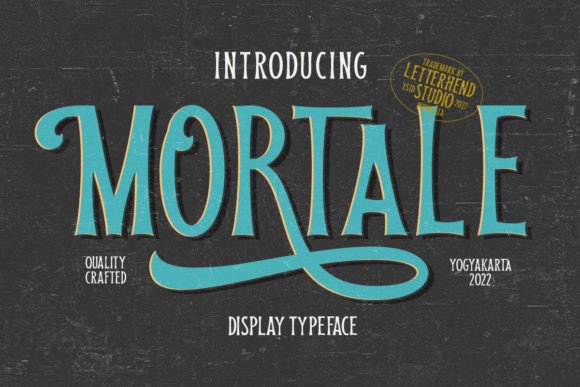
Discover Mortale Font: A Timeless Masterpiece for Your Creative Expressions
Journey back in time with Mortale Font, a stunning display font that captures the essence of vintage artistry. Inspired by the charm of bygone eras, Mortale beautifully blends the allure of yesteryears with a touch of modern elegance.
Immerse yourself in the world of vintage lettering as you craft captivating headlines that exude a timeless appeal. Let Mortale's distinct characters dance across your designs, adding a touch of nostalgia and sophistication to your projects.
Elevate your logotypes with Mortale's distinctive charm, creating visual identities that stand out from the ordinary. Its meticulously crafted glyphs will add a touch of uniqueness to your branding efforts, ensuring your designs leave a lasting impression.
Unleash your creativity in the world of fashion with Mortale's versatility. Design apparel that speaks to the vintage enthusiast, creating t-shirts, sweatshirts, and accessories that evoke a sense of history and style.
Personalize your invitations with Mortale's elegant touch, adding a timeless charm to your special occasions. Its graceful curves and intricate details will elevate your invitations, making them cherished keepsakes that reflect your discerning taste.
Mortale's versatility extends to branding and packaging, where its vintage aesthetic can transform your products into objects of desire. Create packaging designs that tell a story, capturing the attention of customers and leaving them with a lasting impression.
In the realm of advertising, Mortale's captivating presence will make your campaigns stand out. Its unique style will draw eyes and create a connection with your audience, ensuring your message resonates and leaves a lasting impact.